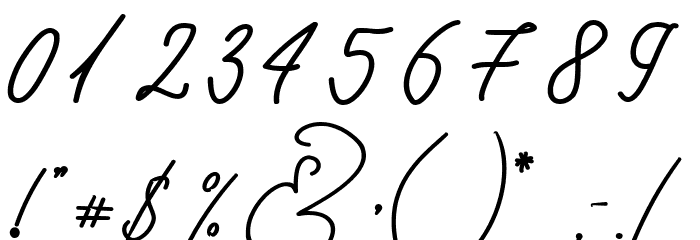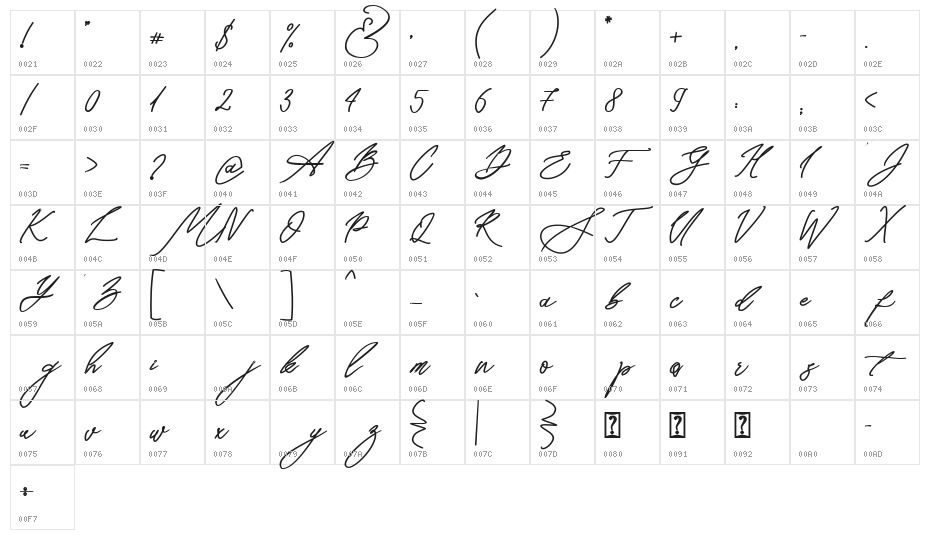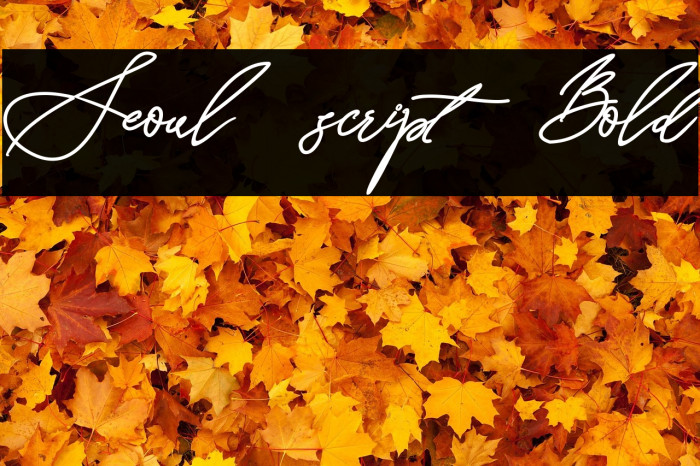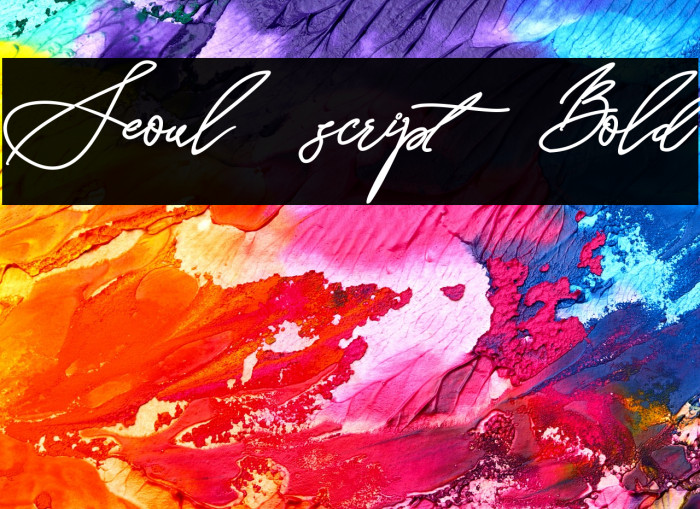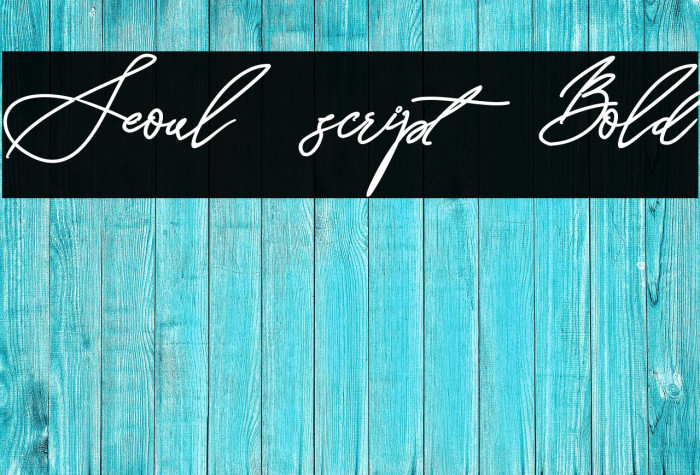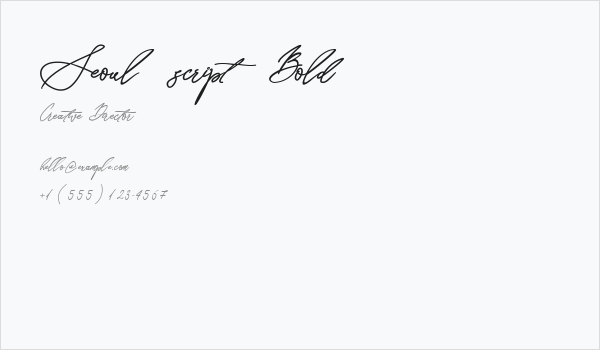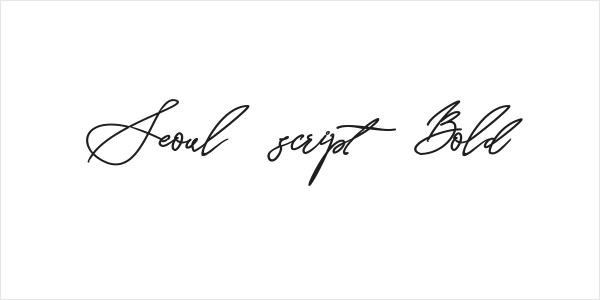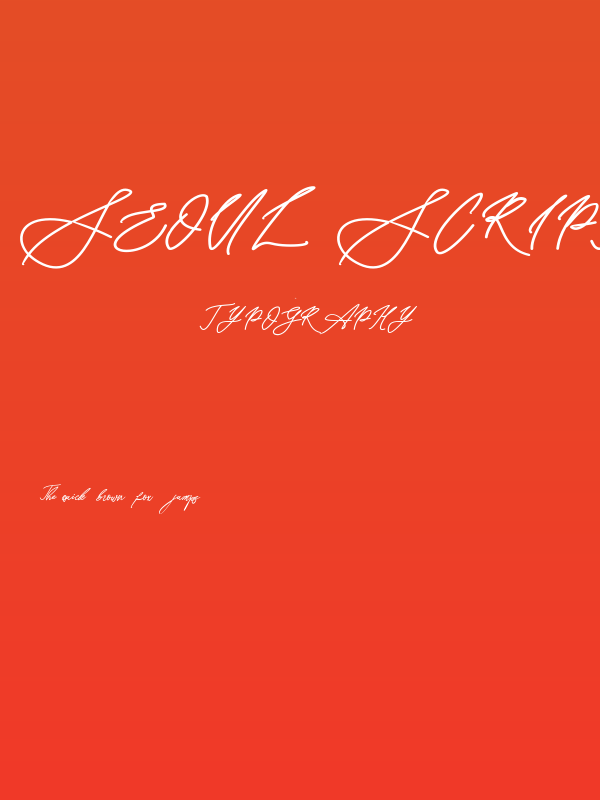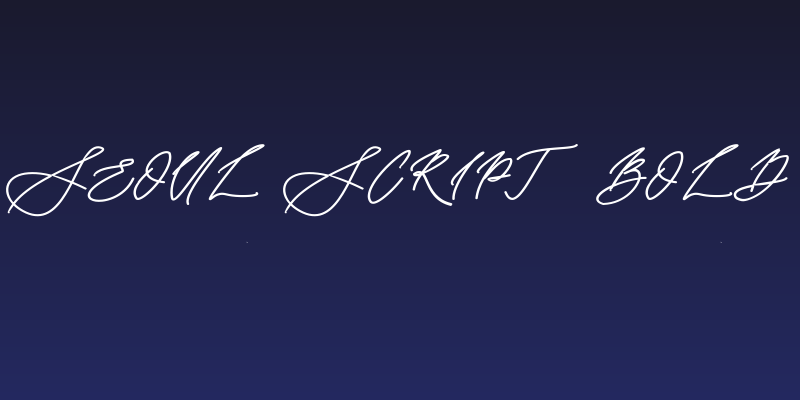
Seoul script Bold Font
Seoul script Bold Description
This font exudes elegance and sophistication with its flowing, cursive script style. The characters are intricately designed, showcasing a high level of detail and fluidity. Each letter connects seamlessly, creating a harmonious and continuous line that mimics the natural motion of handwriting. The bold weight of the font adds a striking presence, making it ideal for attention-grabbing headlines or artistic projects. The uppercase letters are grand and sweeping, while the lowercase letters maintain a graceful and consistent form. Numbers and special characters are equally stylized, ensuring a cohesive look across all text elements.
| Use Case | Logos, Invitations, Headlines |
| Proposed Projects | Ideal for wedding invitations, branding, logos, and elegant packaging designs. |